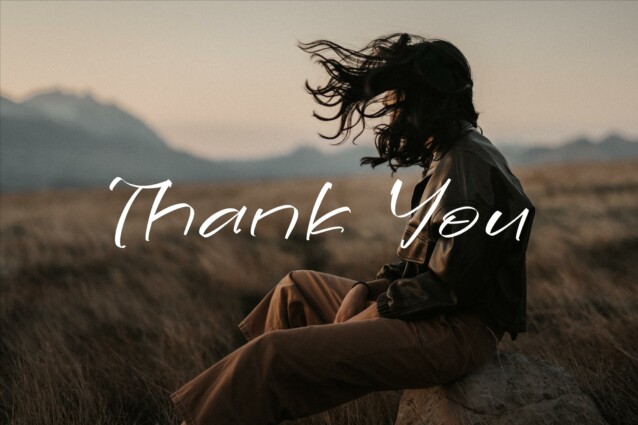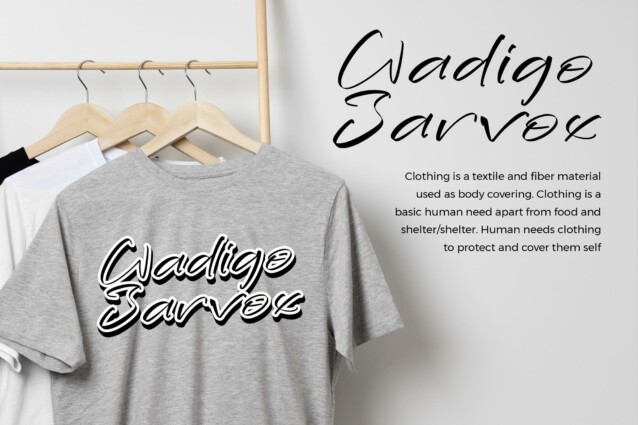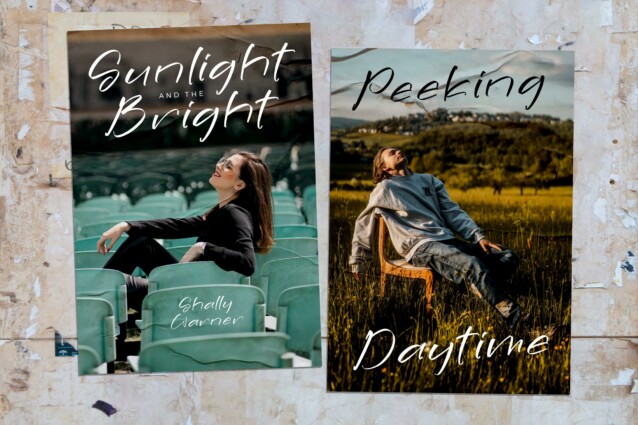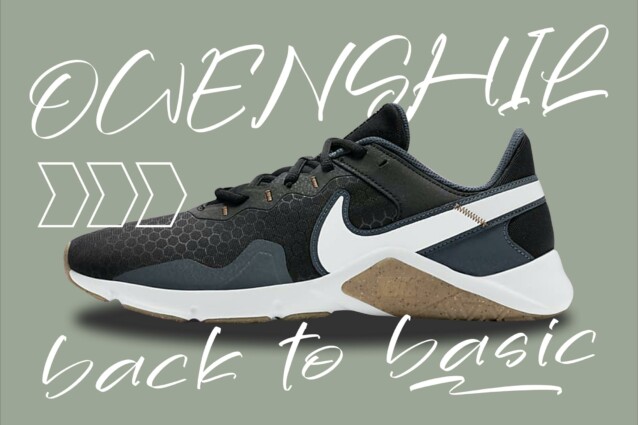
Slimykine Roschild Font
Slimykine Roschild Script Font is a stylish handwritten font, suitable for any projects such as: logos, branding projects, homeware designs, product packaging, mugs, quotes, posters, shopping bags, t-shirts, book covers, name card, invitation cards, greeting cards, label, photography, watermark, special events, and all your other lovely projects that need a beautiful script taste.